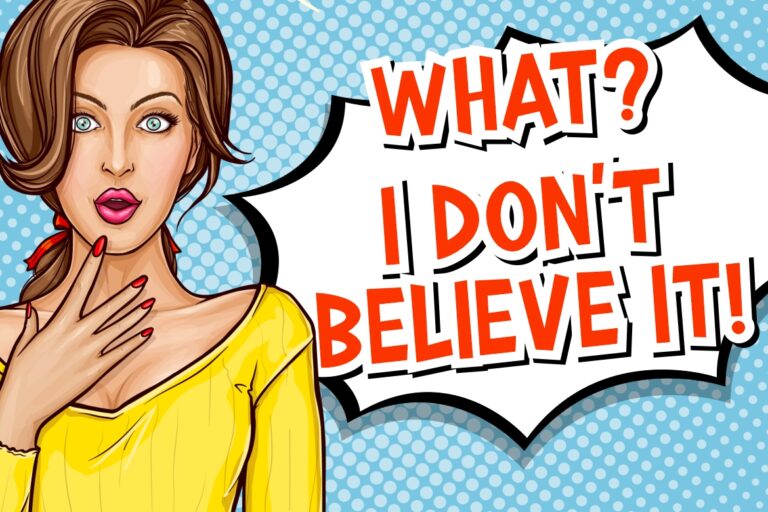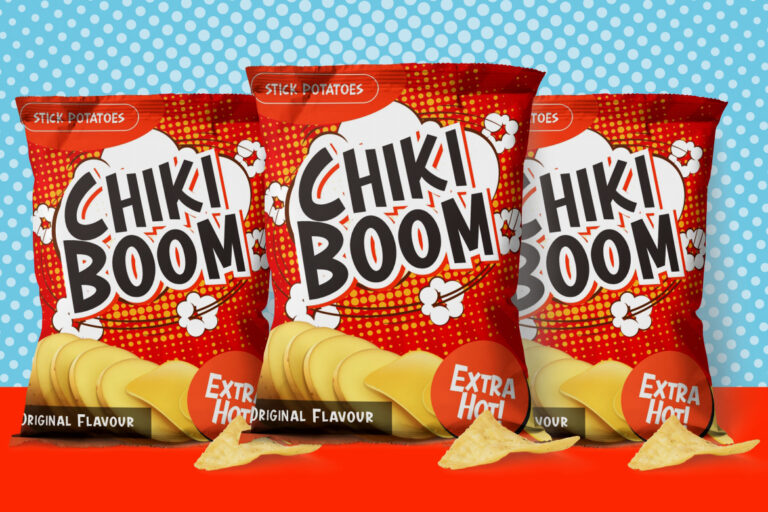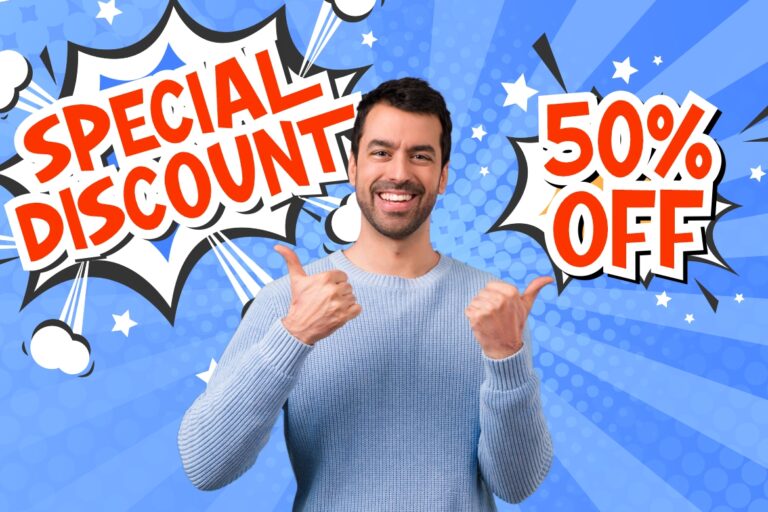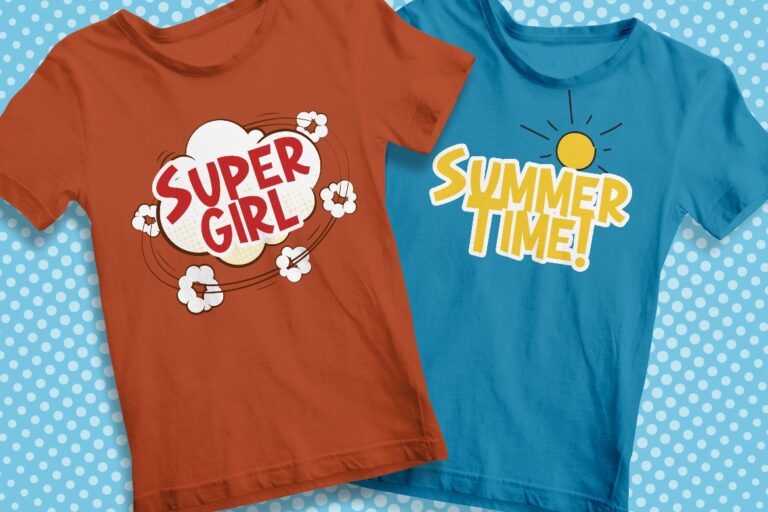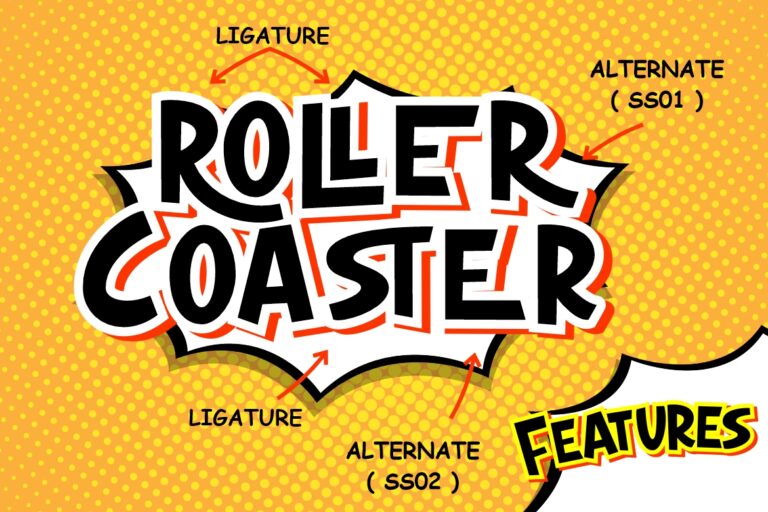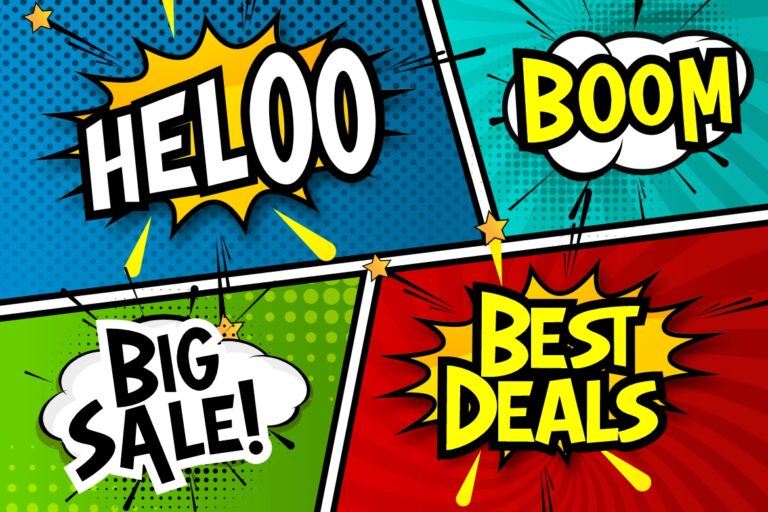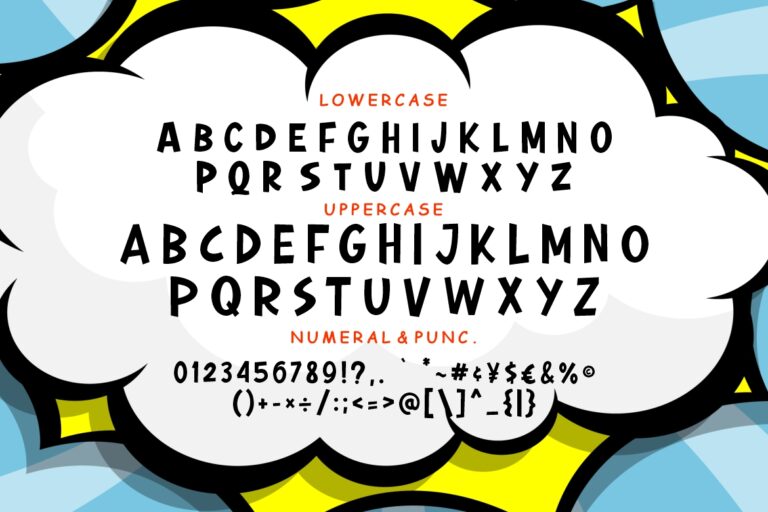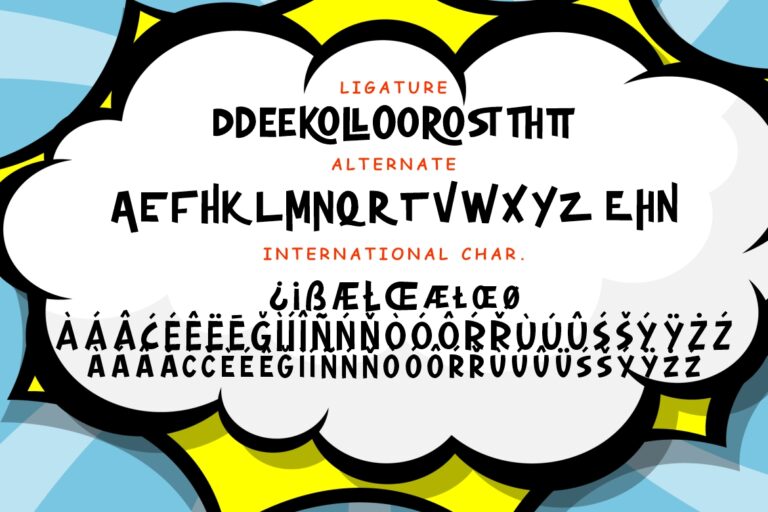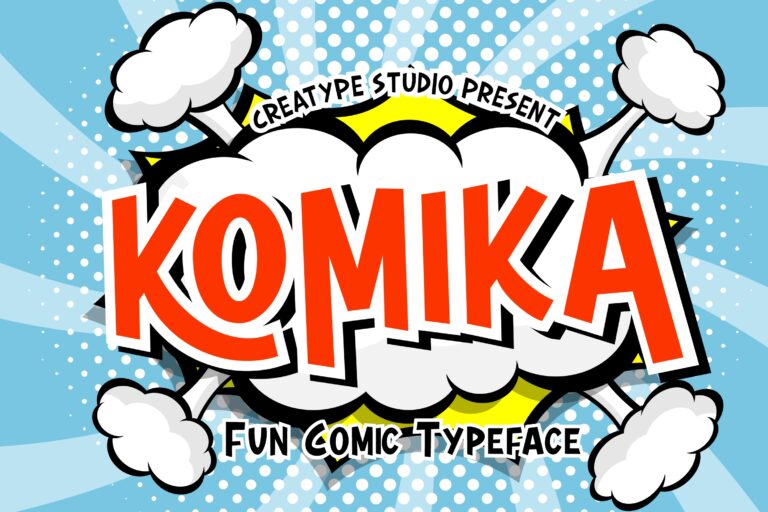
Komika a display bold font with fun and playful theme for your fun and comic project.
Komika would perfect for photography, watermark, social media posts, advertisements, logos & branding, invitation, product designs, label, stationery, wedding designs, product packaging, special events or anything that need handwriting taste.
Komika Fun Comic Typeface Font